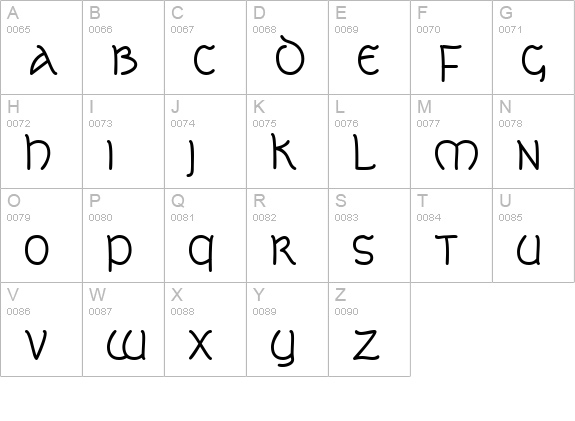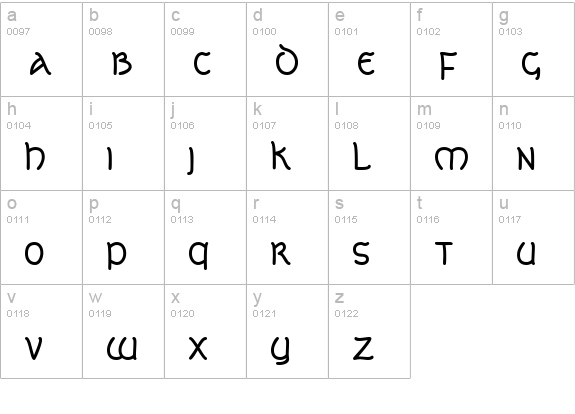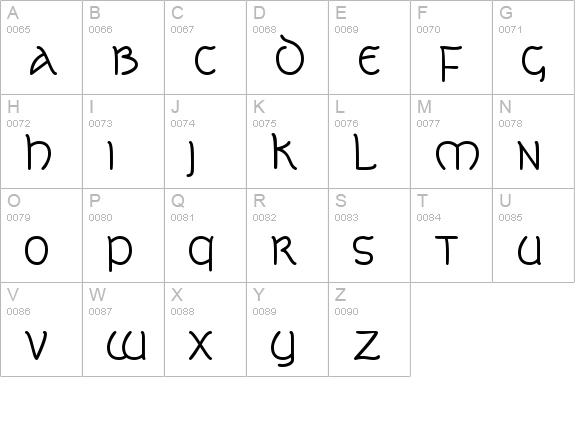
Celtic Lion AOE Font Details
The Celtic Lion AOE font embodies the majestic spirit of ancient Celtic artistry with its intricate swirls and bold lines. This unique font exudes a sense of strength and power, reminiscent of the legendary lion symbol often associated with Celtic mythology. Its artistic flair and intricate details make it a standout choice for projects that require a touch of mystique and history. Best of all, the Celtic Lion AOE font is freely available to download at FontsMarket.com. This means that you can easily incorporate this stunning font into your designs without any cost or hassle. Let the Celtic Lion AOE font elevate your projects with its striking presence and timeless appeal. Download it today and unleash the power of Celtic-inspired design!